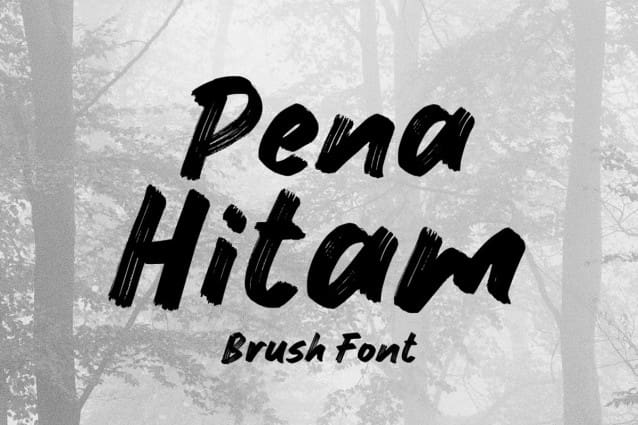
Pena Hitam Brush Font
Pena Hitam Brush Font is a bold handbrush font that brings a raw and authentic feel to your designs. Its natural brush strokes add energy and character, making it perfect for posters, branding, packaging, and creative projects that need a touch of artistic flair.